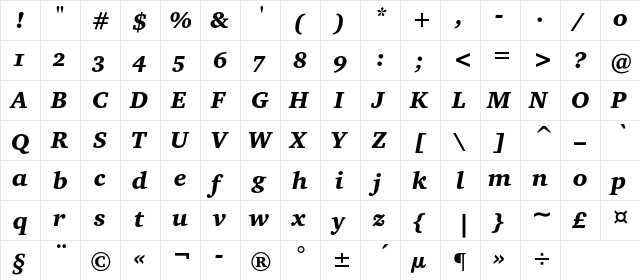
CharterBlackOSC Italic Font Preview
CharterBlackOSC Italic
Design Context for CharterBlackOSC Typeface
CharterBlackOSC offers clean, dependable letterforms without strong stylistic allegiance, making it a practical choice for designers who need flexibility. The slanted form adds forward momentum and visual energy.
Pro Tip: Try CharterBlackOSC for annotation and caption copy alongside an upright companion — the contrast in angle creates a dynamic but ordered typographic system.